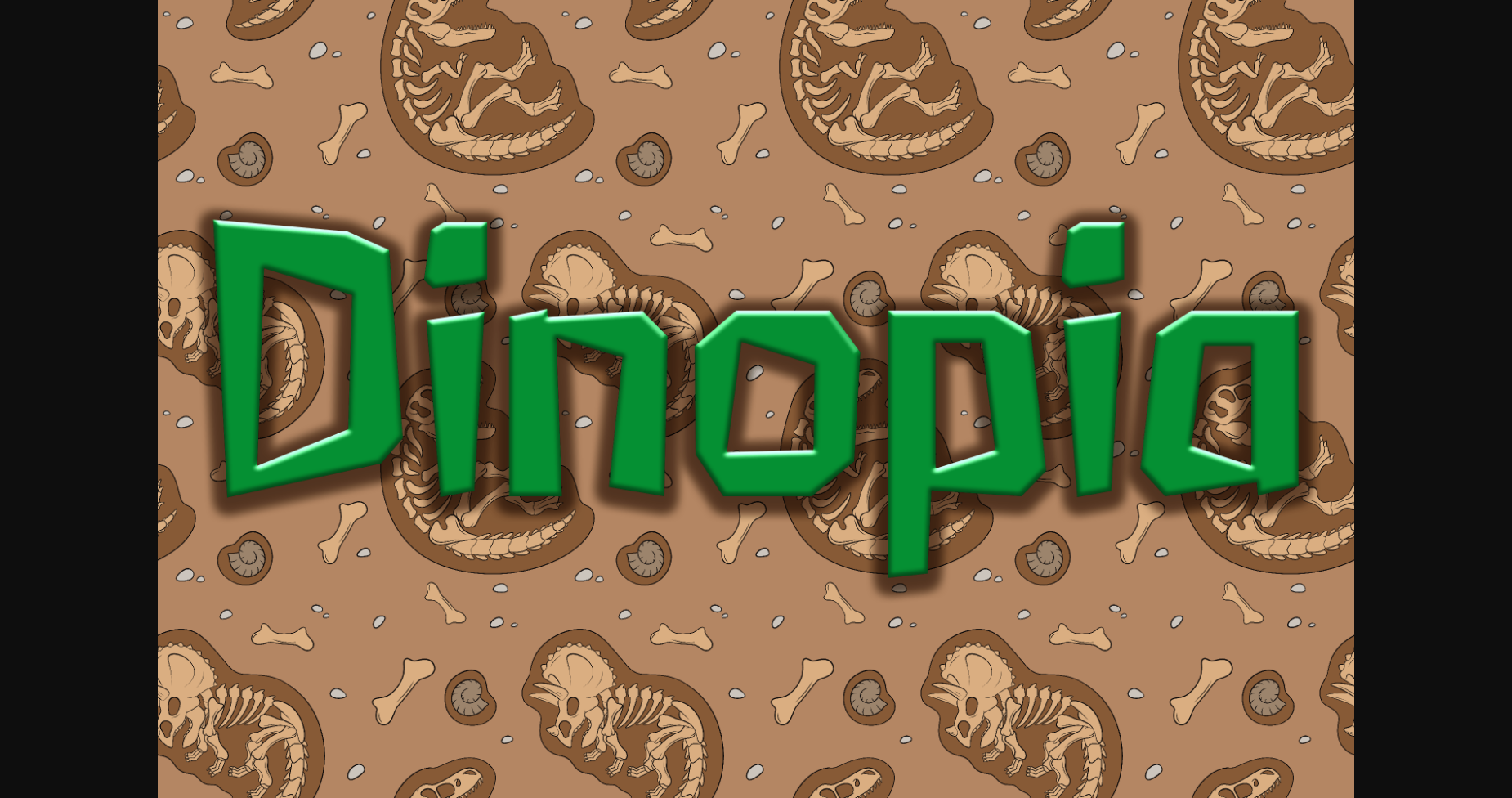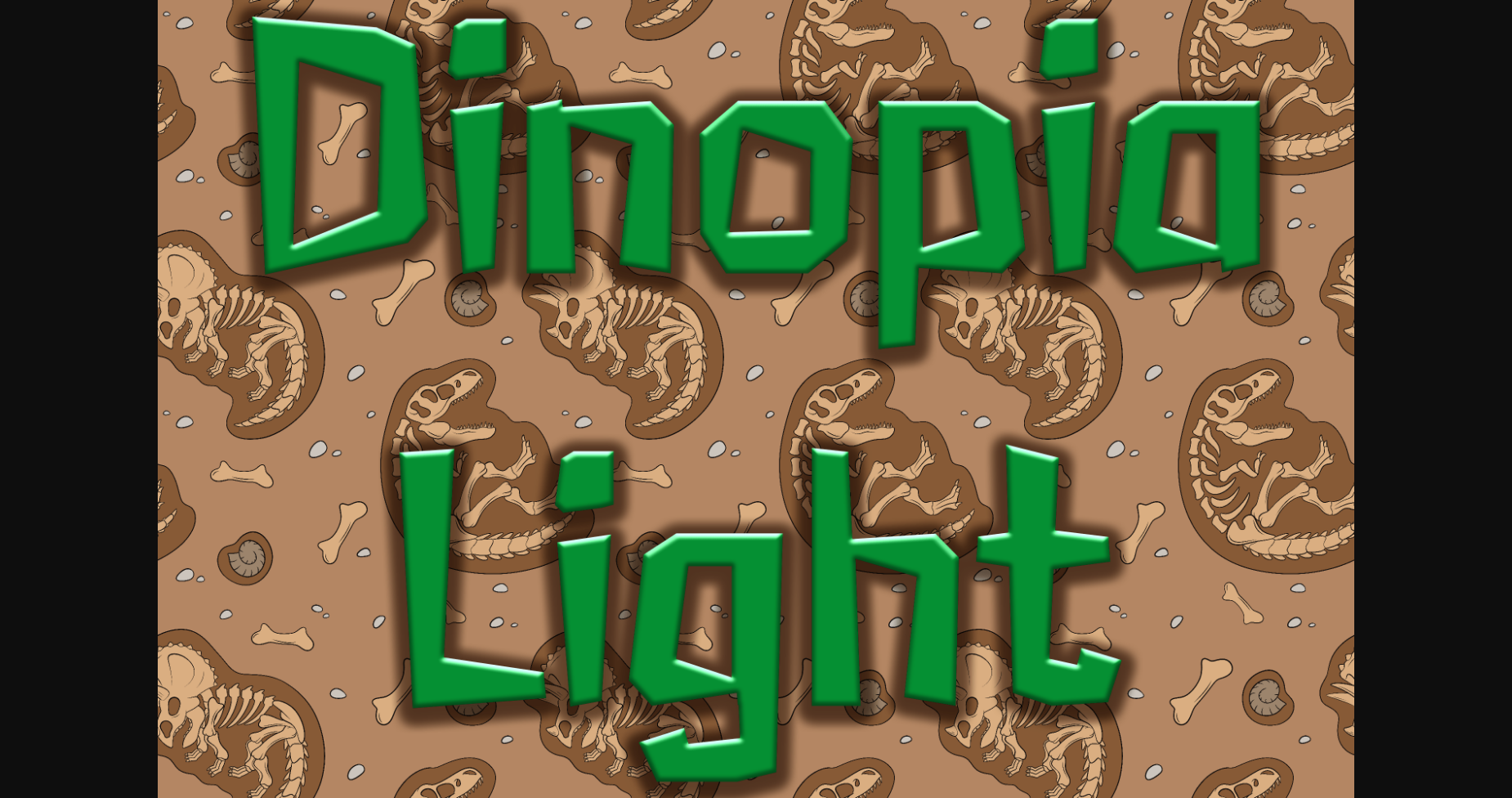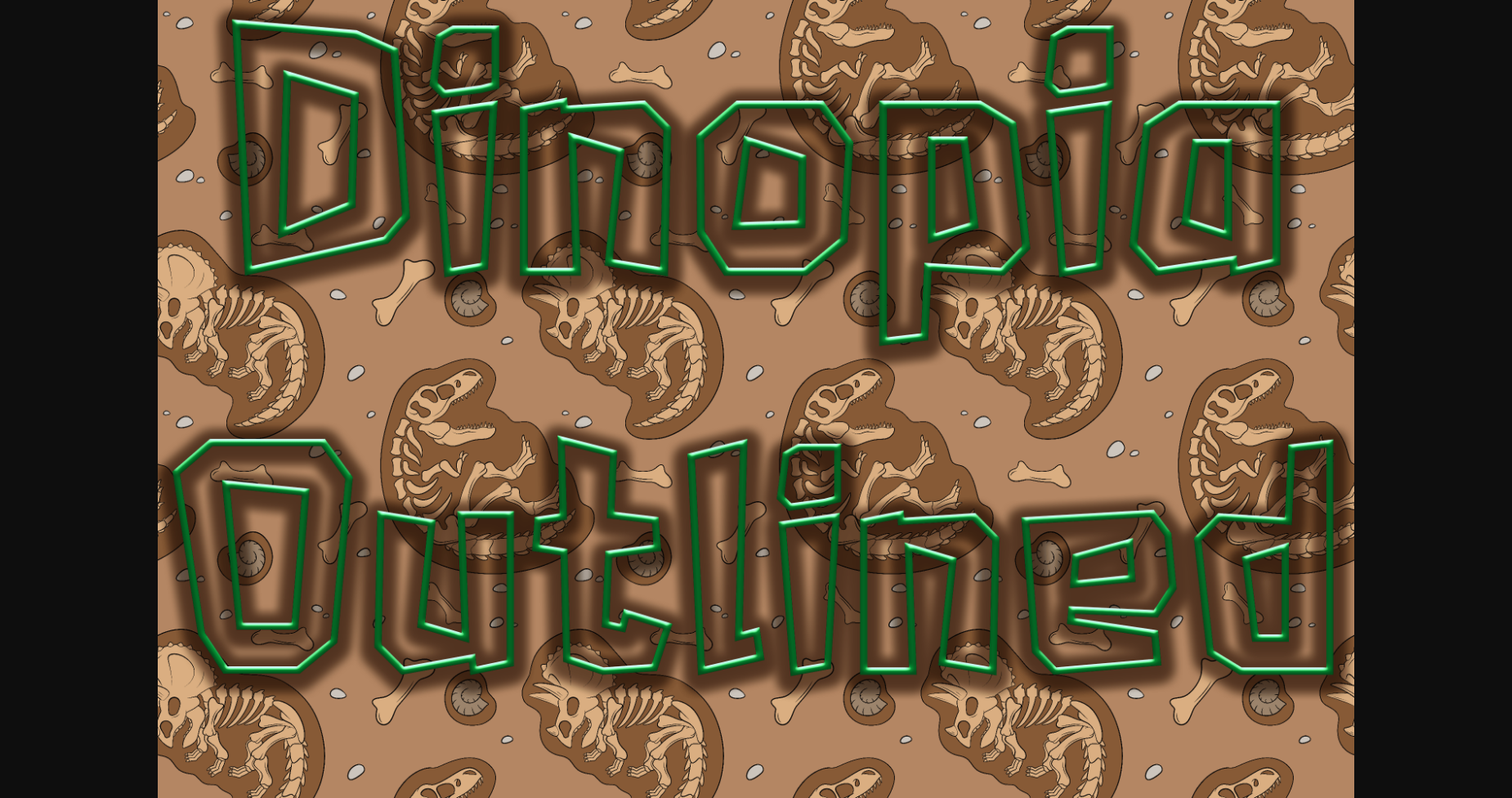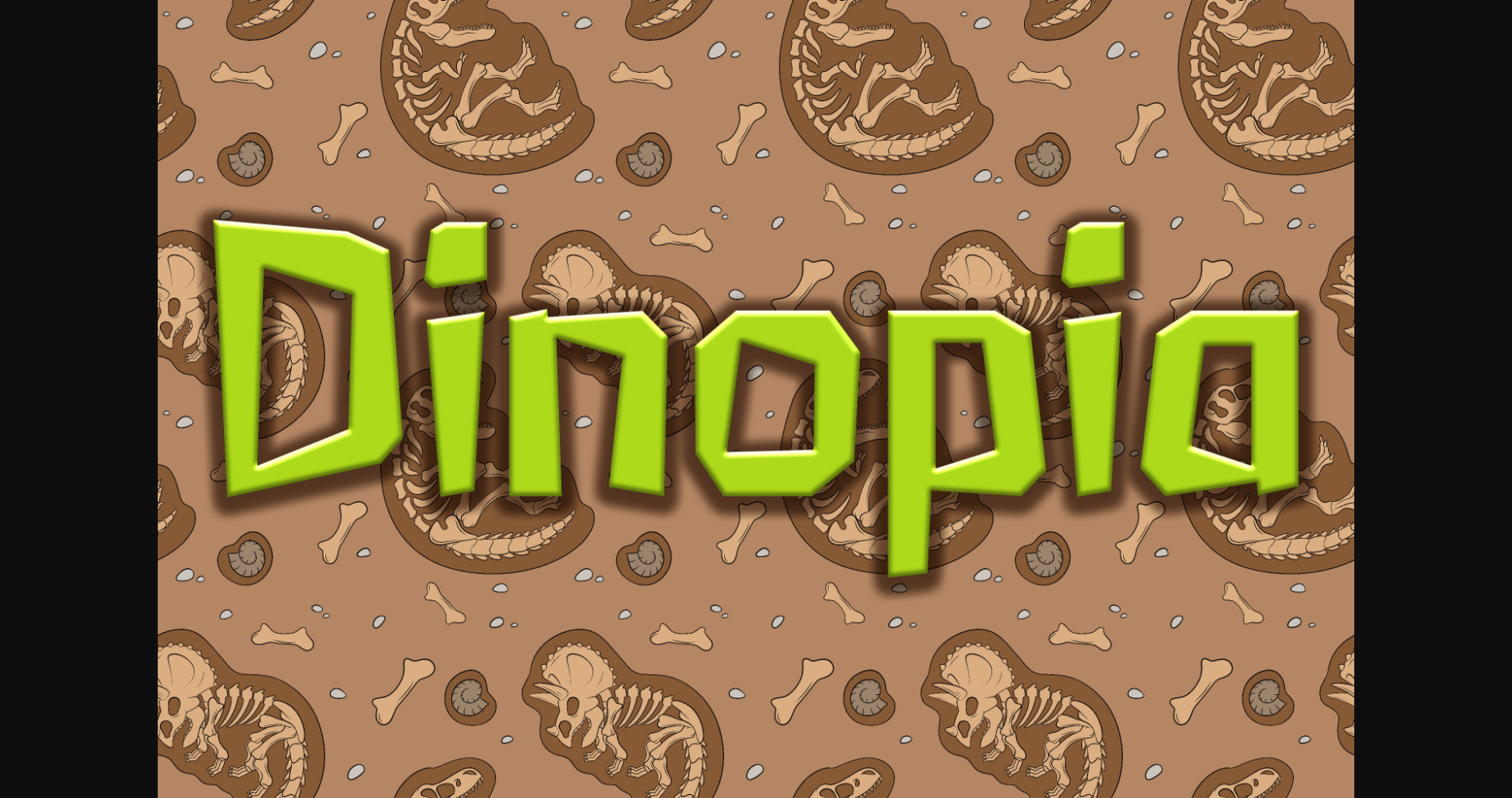
Dinopia Font
About Dinopia Font
Dinopia is a fun and playful sans serif display font. Its interesting and unique style makes it suitable for a large variety of design ideas.